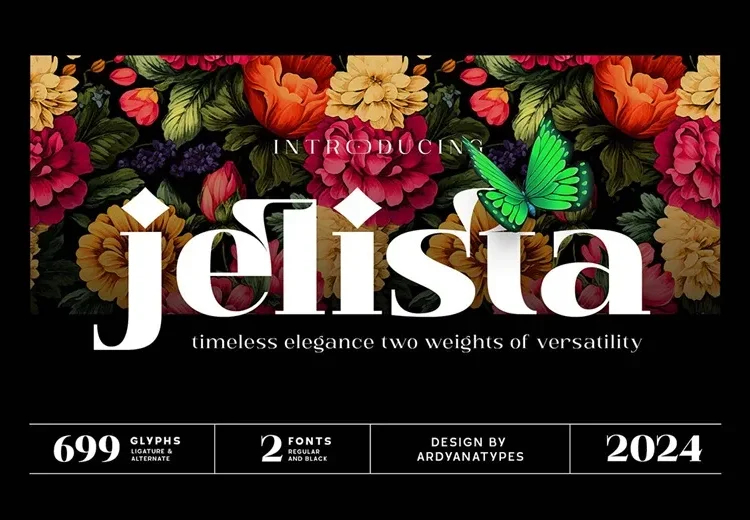
Jelista Font
Jelista is a serif font that embodies a special touch and strong aesthetic appeal. Its design is rooted in the principles of classical lettering, enhanced with a contemporary twist that features strokes that are both powerful and graceful. This font provides a high level of linguistic support for numerous languages, an array of fancy ligatures for smooth and cohesive text, and a variety of alternates that expand its versatility across different applications.
This versatility makes Jelista ideal for branding, editorial work, invitations, and any other design projects that require a distinctive flair. With its powerful yet elegant personality, Jelista stands out in any typographic setting, ensuring that it leaves a lasting impression on viewers.
The combination of classic legibility with modern design elements means Jelista is not just a font; it’s a statement. Whether you’re crafting a sophisticated brand identity or designing eye-catching promotional materials, this font will enhance the visual impact of your work.